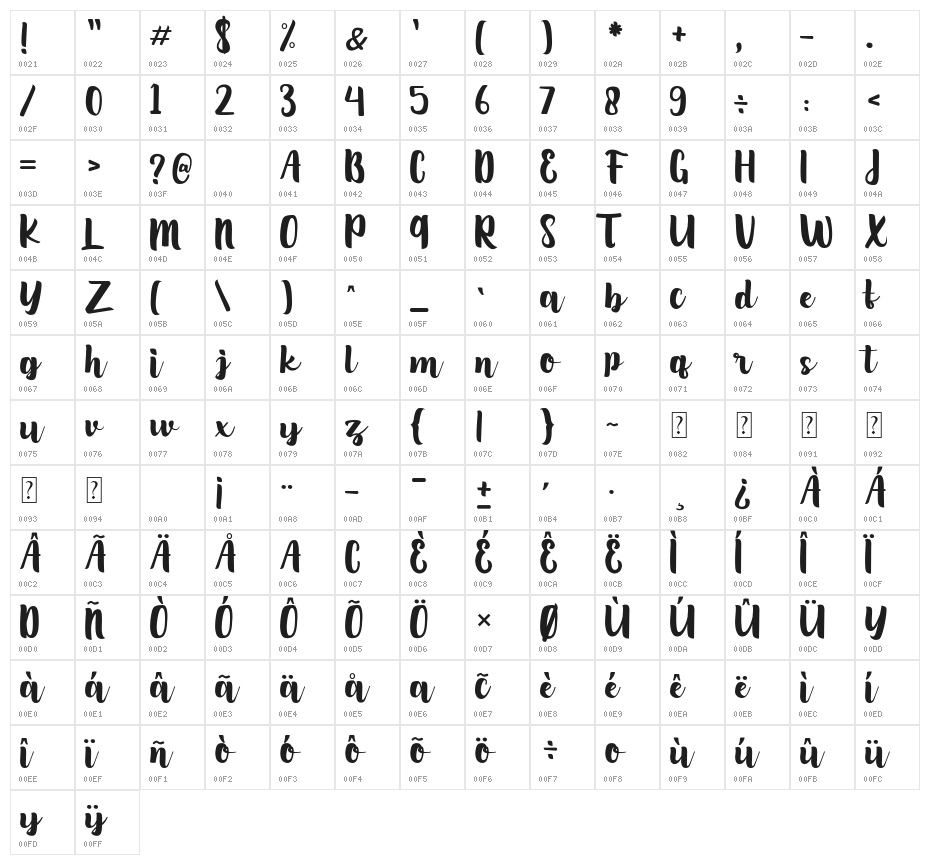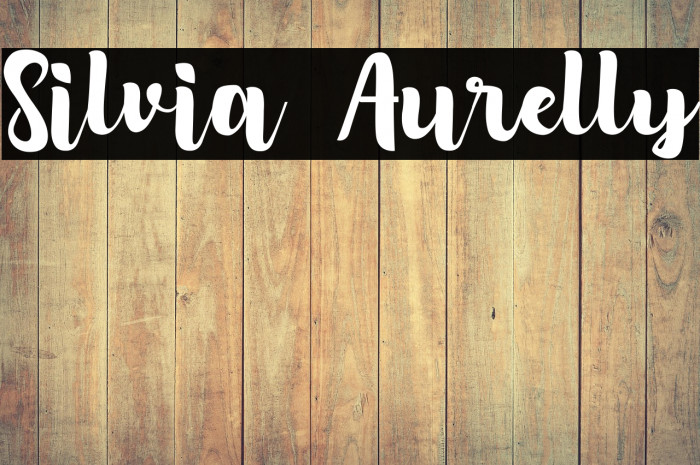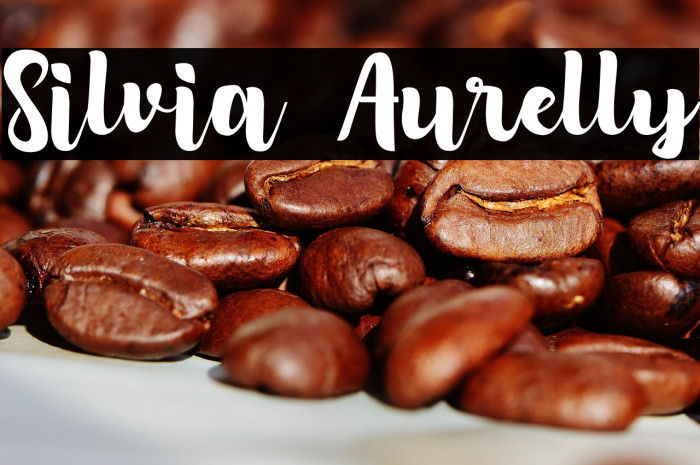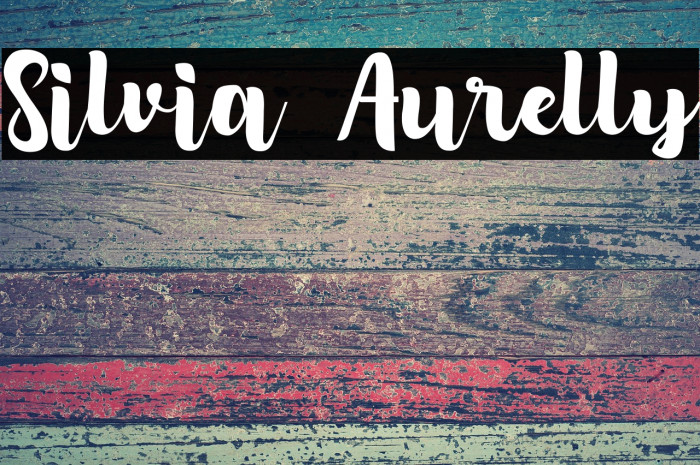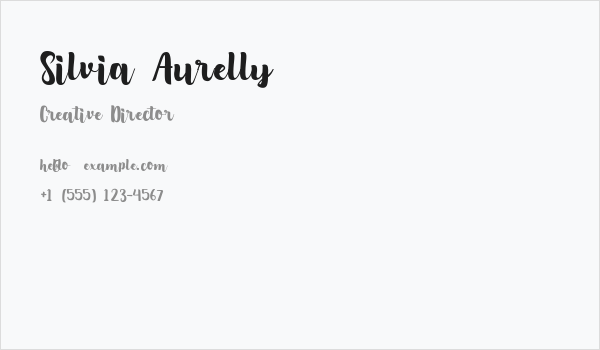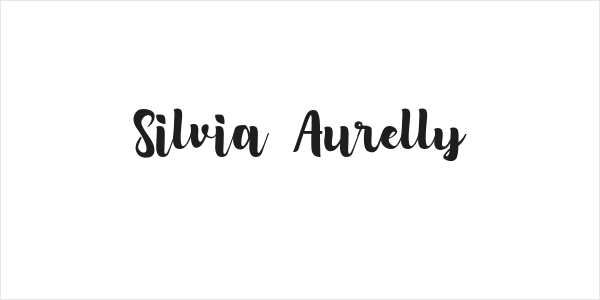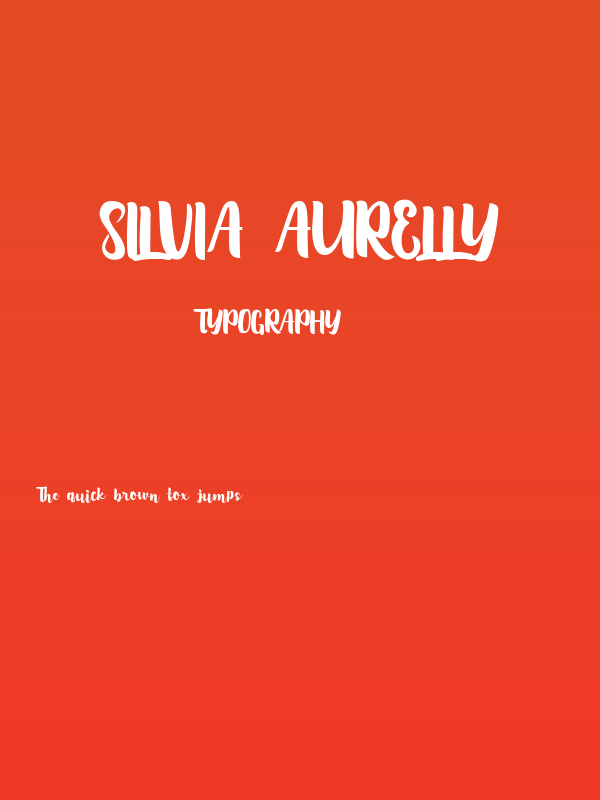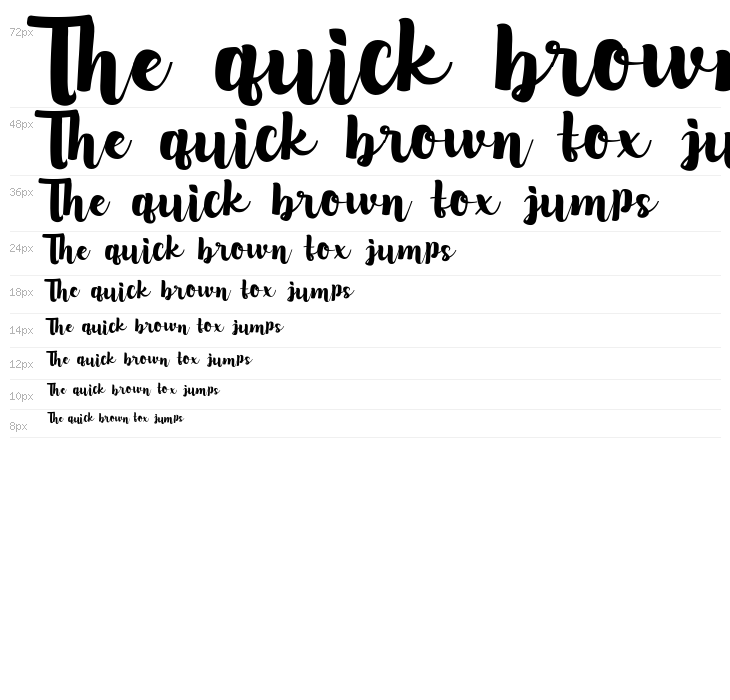
Silvia Aurelly Font
Silvia Aurelly Description
This font features a bold and expressive handwritten style, characterized by its fluid and dynamic strokes. The uppercase letters are tall and slightly condensed, while the lowercase letters maintain a consistent flow with a playful touch. The numbers and special characters complement the overall style with their bold presence. The font's design is both modern and artistic, making it suitable for creative projects that require a personal and informal touch. Its unique character shapes and smooth curves give it a friendly and approachable appearance.
| Proposed Projects | Ideal for greeting cards, invitations, logos, and branding materials that seek a personal and artistic flair. |